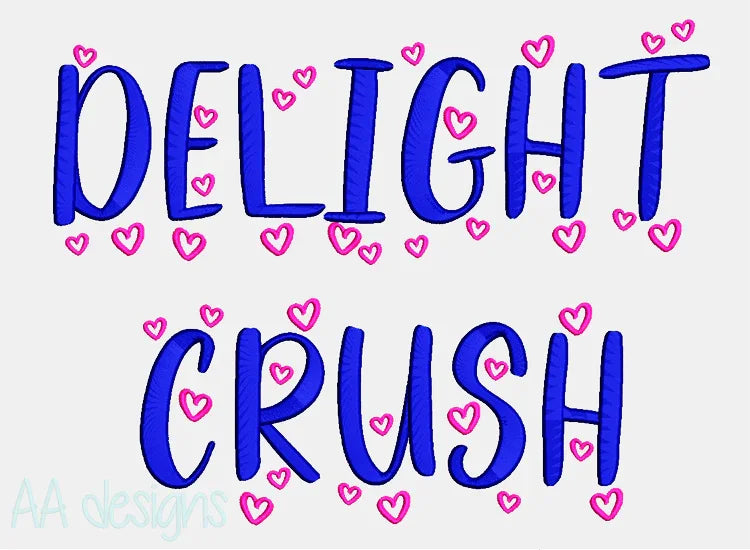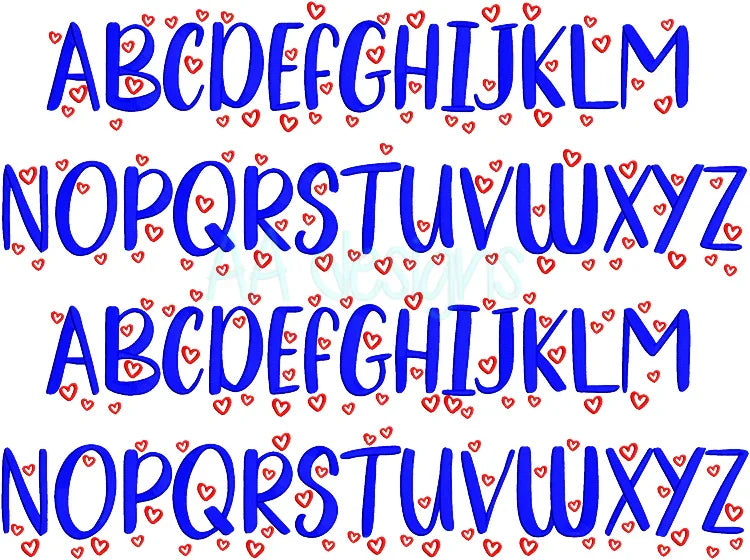
Delight Crush embroidery digital font. Machine embroidery font for instant download. BX also
Delight Crush Machine Embroidery Font — Instant Digital Download
Bring a playful, delightful style to your embroidery projects with the Delight Crush Font. Ideal for tote bags, hats, shirts, baby items, and personalized gifts.